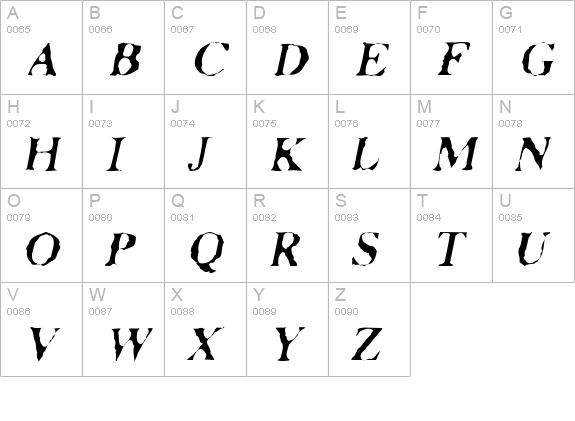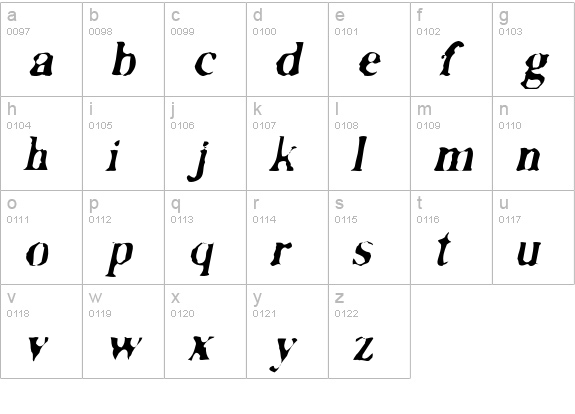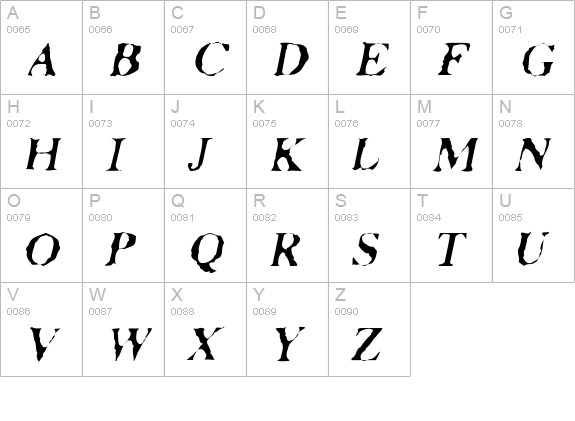
FacsimiledItalic Font Details
Introducing FacsimiledItalic, a stunning and elegant font that is sure to captivate and inspire. With its exquisite curves and graceful strokes, this font is perfect for adding a touch of sophistication to any project. FacsimiledItalic is a true work of art, meticulously crafted to bring your designs to life. Its unique and intricate design elements make it stand out from the crowd, while still maintaining a sense of timeless beauty. Whether you're designing a logo, a website, or a print advertisement, FacsimiledItalic is the perfect choice. Its versatility and charm make it suitable for a wide range of applications, and its legibility ensures that your message will be conveyed with clarity and style. What sets FacsimiledItalic apart is not only its exceptional design, but also the fact that it is freely available to download at FontsMarket.com. Yes, that's right – this incredible font can be yours at no cost. We believe that creativity should be accessible to all, and that's why we have made FacsimiledItalic available for free, so that designers from all walks of life can bring their visions to life. So why wait? Unlock your creativity and download FacsimiledItalic today. Discover the endless possibilities that this font has to offer, and let your designs shine with its timeless elegance. Whether you're a professional designer or just starting out, FacsimiledItalic is an essential addition to your font collection. Don't miss out on this incredible opportunity – get your hands on FacsimiledItalic now, exclusively at FontsMarket.com.